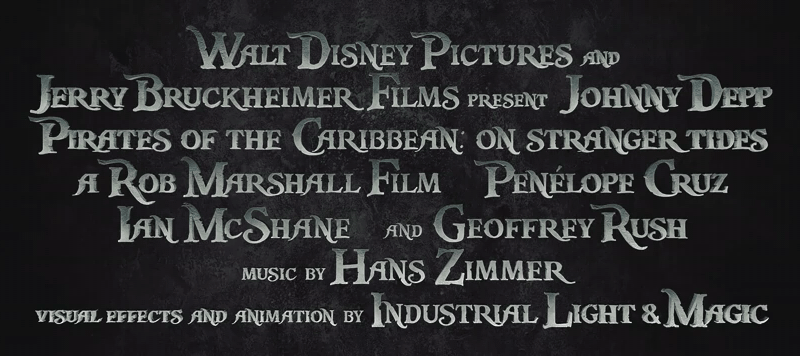
Font name: | Pieces of Eight |
Author: | Steve Ferrera |
Note by Steve Ferrera | |
Avast, matey! Would it be "Pirates of the Caribbean font" ye seek as seen in the Title of Disney's "Pirates of the Caribbean" Movies. Now being used by the Walt Disney Company on T-shirts at Downtown Disney, 2011 Pirates of the Caribbean On Stranger Tides Official Font. http://www.youtube.com/watch?v=KR_9A-cUEJc also used in 2011 Your Highness Movie font. British Open Pub is now using it. https://www.facebook.com/BOPVenice |